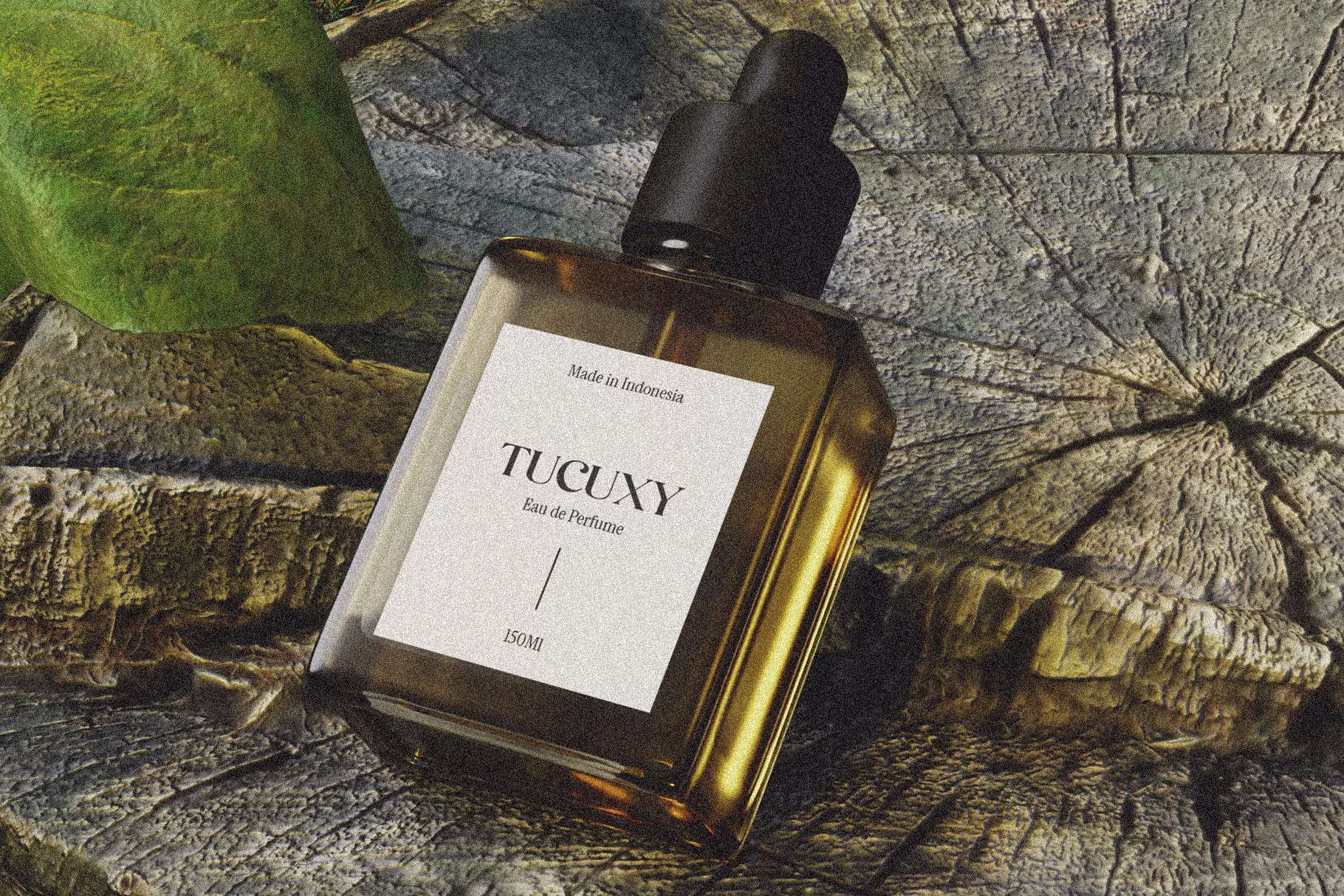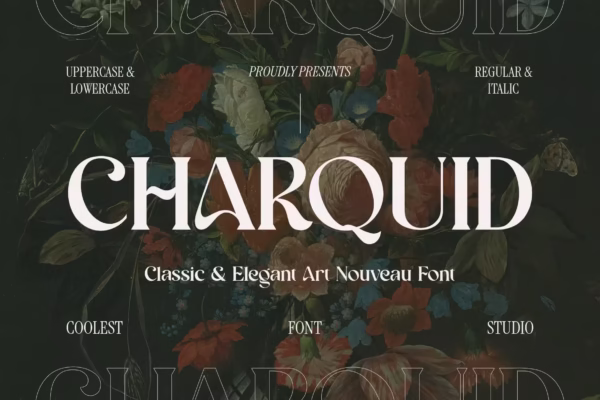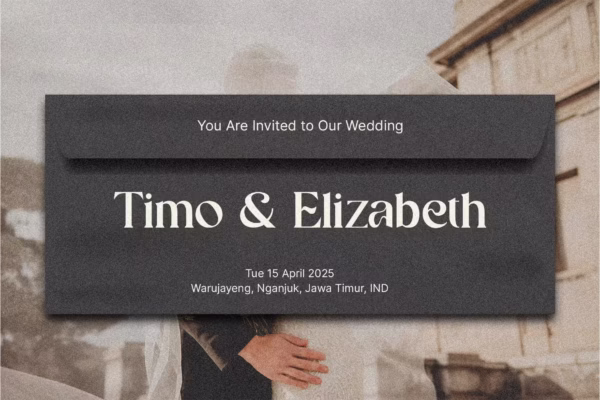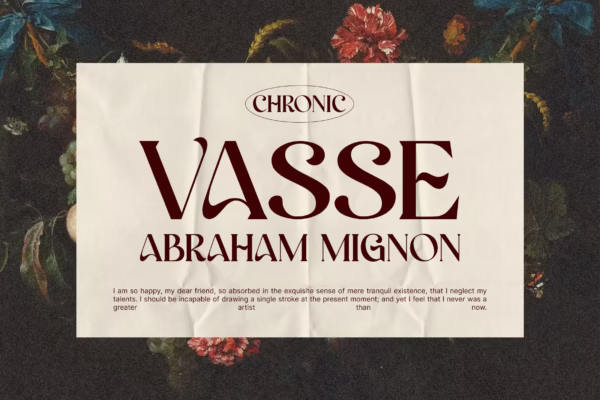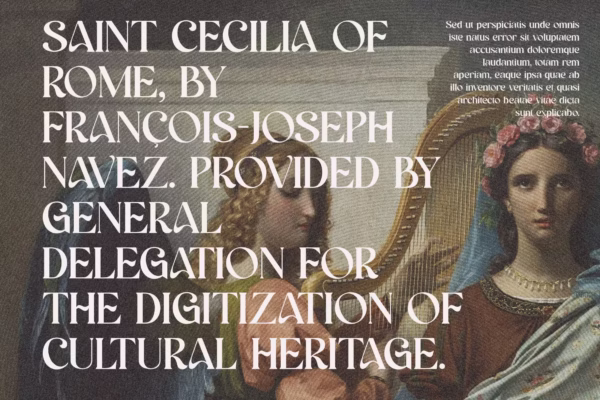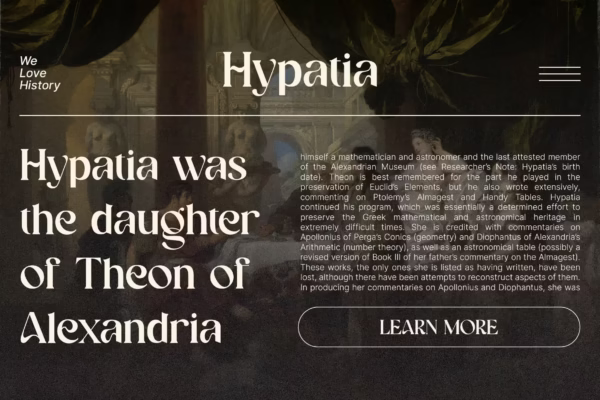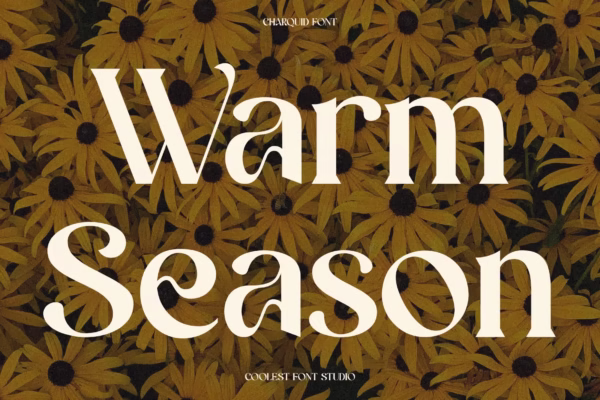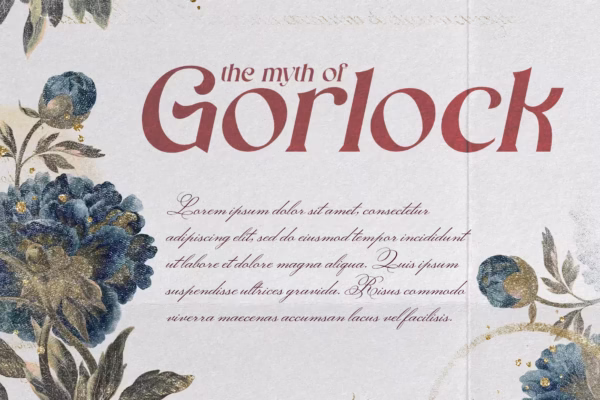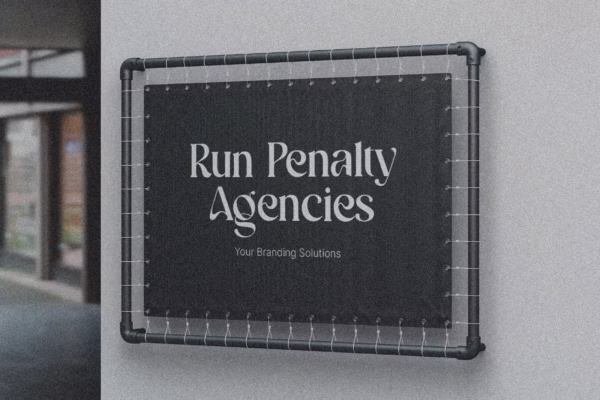
Charquid Font: Where Classic Meets Cool!
Hey there, design wizards and typography enthusiasts! Introducing Charquid Font , the ultimate digital companion that’s as elegant as it is fun to use. Whether you’re a graphic designer, a content creator, or just someone who loves beautiful text, Charquid is here to make your projects pop with style!
What Makes Charquid Font So Special?
- Classic & Elegant Art Nouveau Vibes : Charquid isn’t just another font—it’s a timeless masterpiece inspired by the golden age of artistry. Its flowing lines and intricate details will transport you back to a world of sophistication and charm.
- Regular & Italic Variants : Need something bold and straightforward? Go for the Regular style. Want to add a touch of flair and movement? The Italic version has got your back! Both options are included in this bundle, so you can mix and match to your heart’s content.
- Uppercase & Lowercase Magic : Whether you’re crafting headlines or body text, Charquid covers all your bases. From A to Z (and everything in between), this font ensures consistency and elegance across every letter.
Why Choose Charquid Font?
- Versatility on Steroids : Whether you’re designing logos, creating social media graphics, or drafting an elegant invitation, Charquid adapts seamlessly to any project. It’s like having a Swiss Army knife for your typography needs!
- Perfect for Creative Souls : If you’re into vintage aesthetics, bohemian vibes, or simply want to add a touch of class to your designs, Charquid is your go-to font. It’s not just pretty; it’s packed with personality!
Who’s Behind This Beauty?
Meet the team at Coolest Studio —a group of passionate creatives who believe that typography should be both functional and fun. We poured our hearts into crafting Charquid, ensuring that every curve and serif is perfect for your next big project.